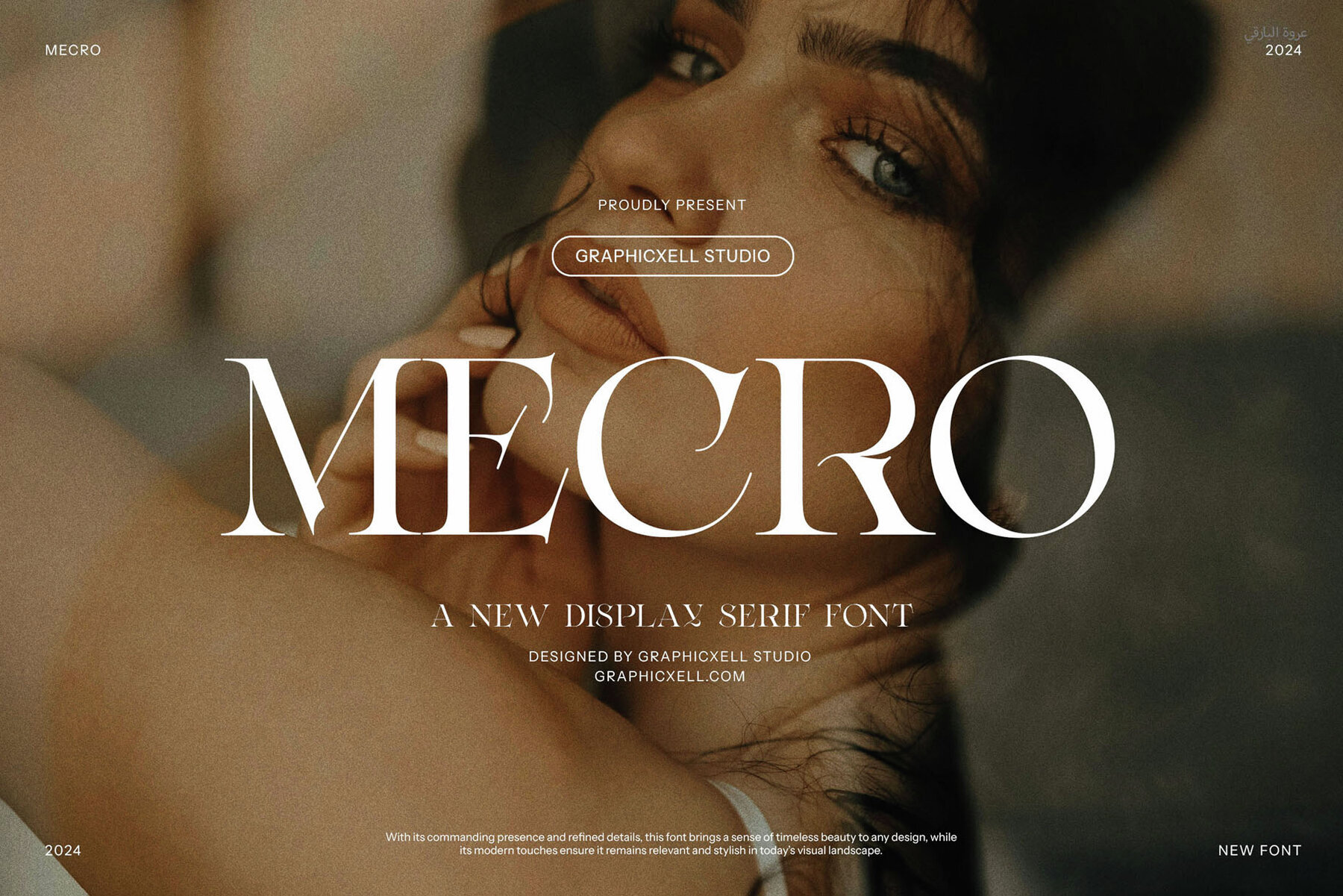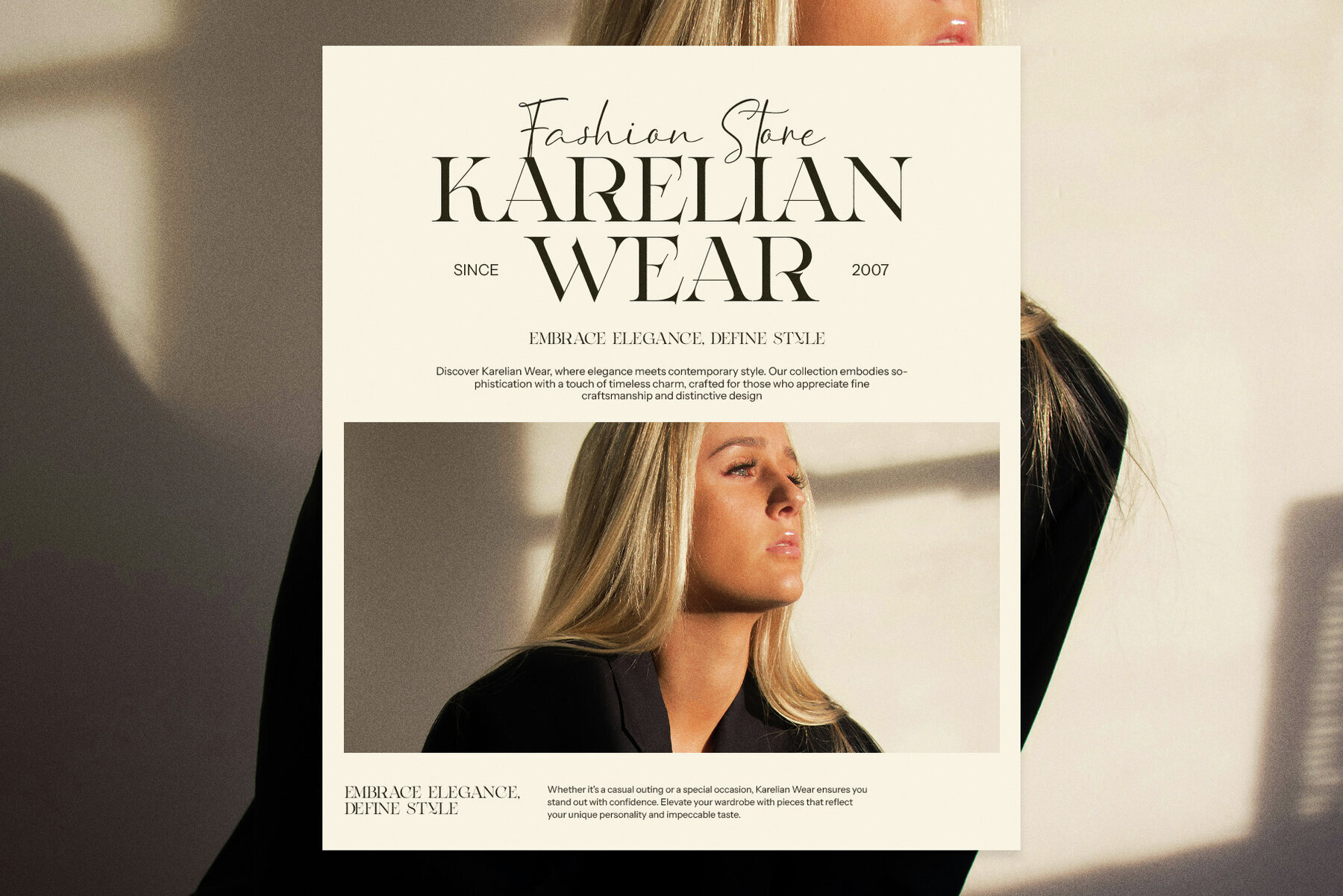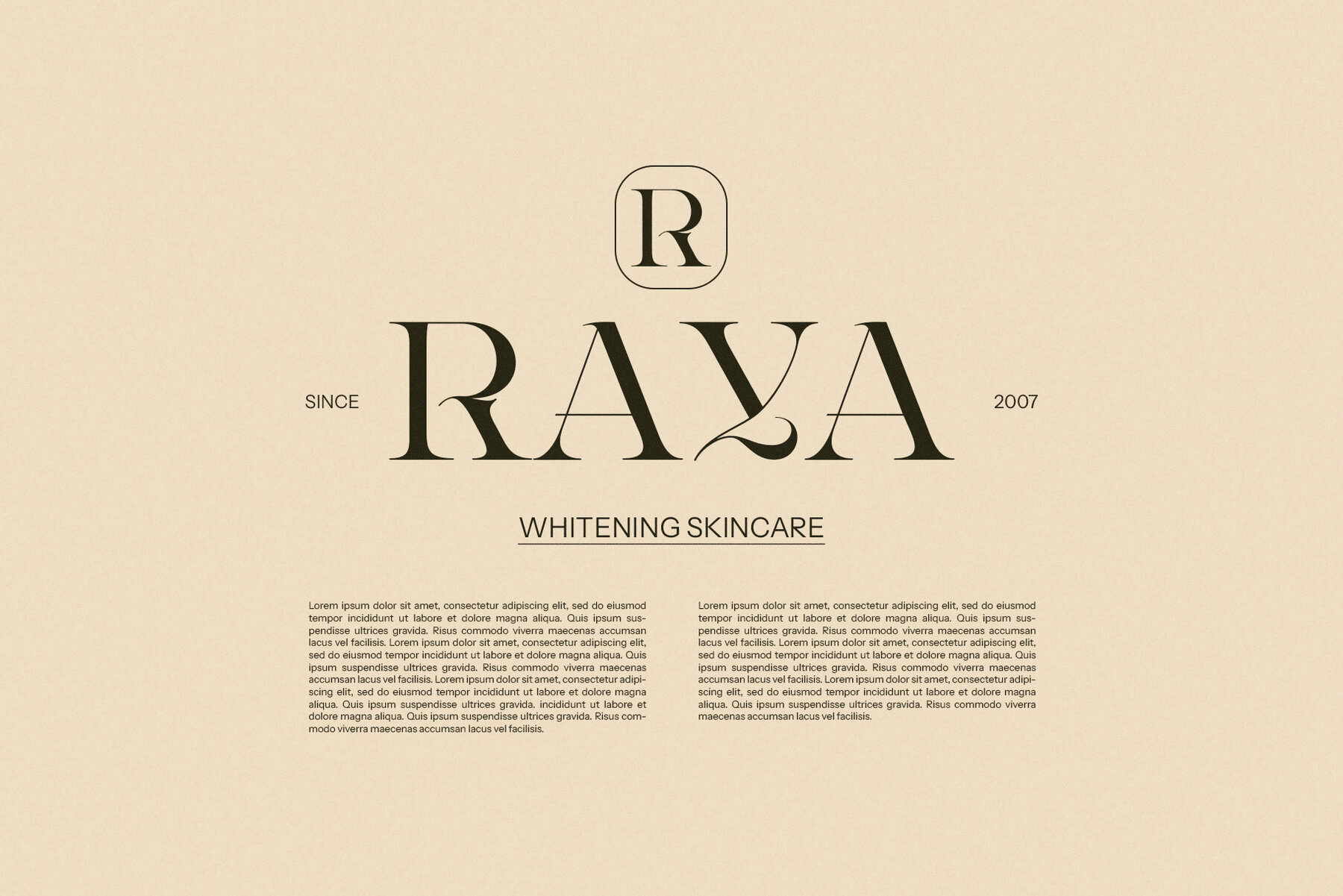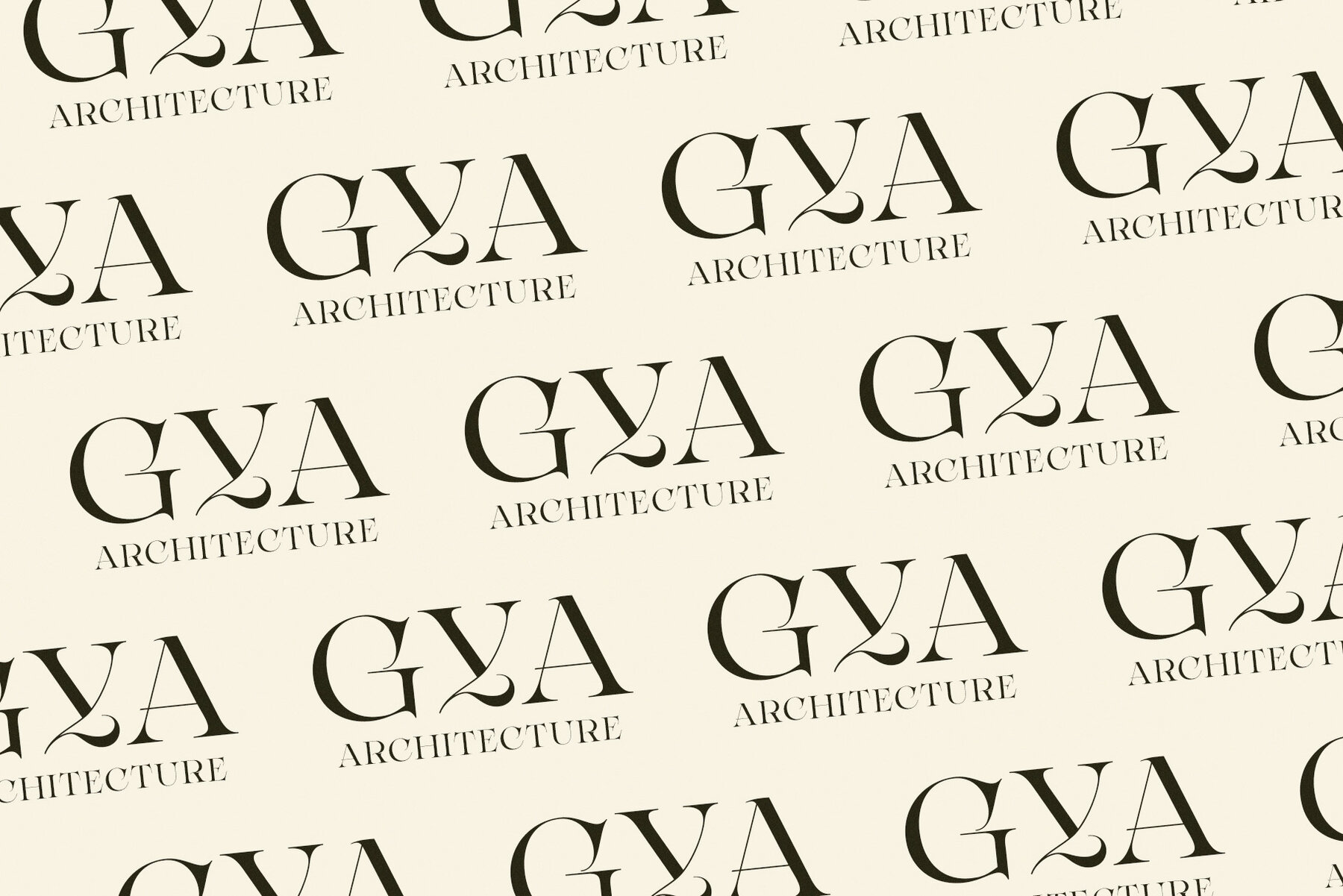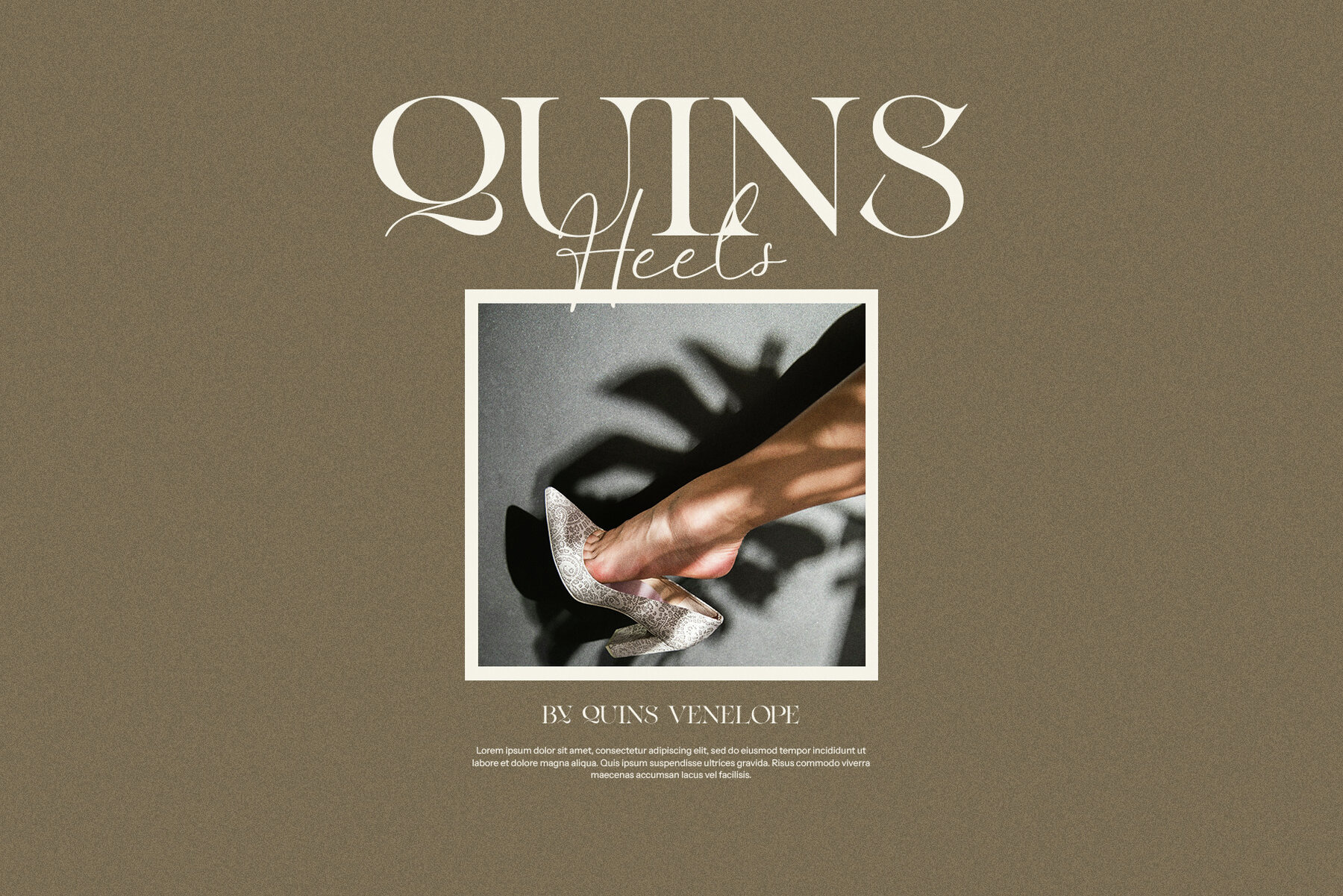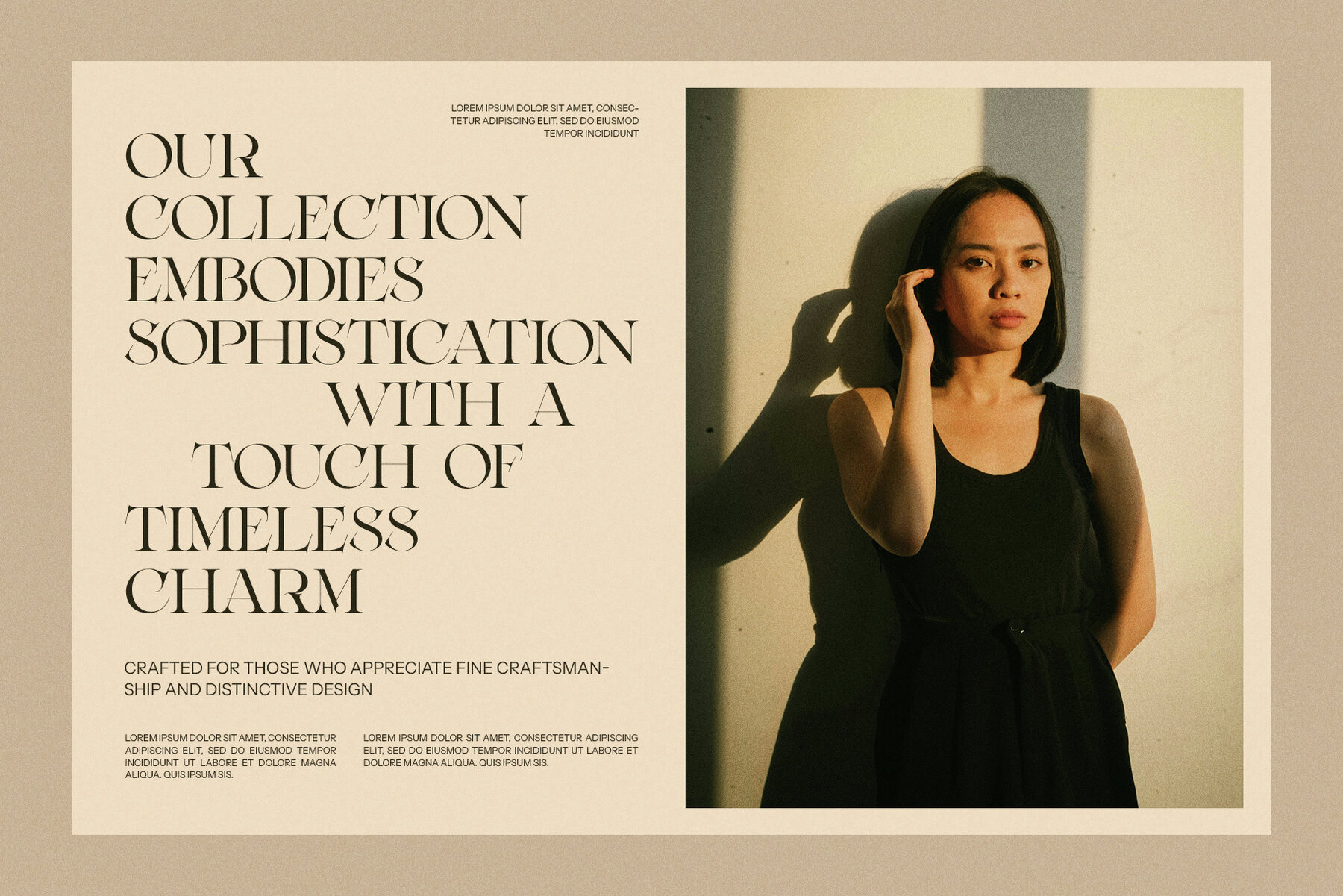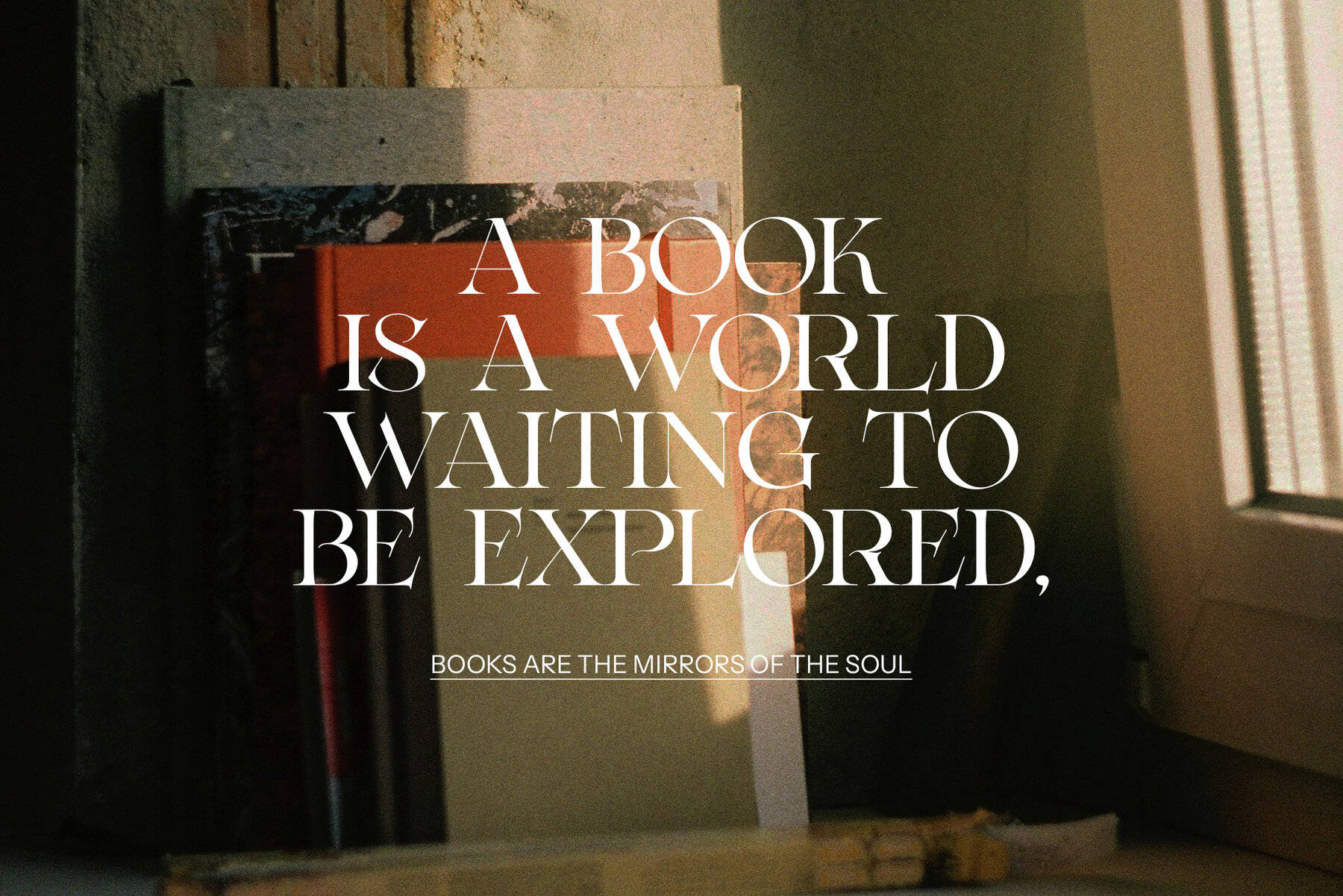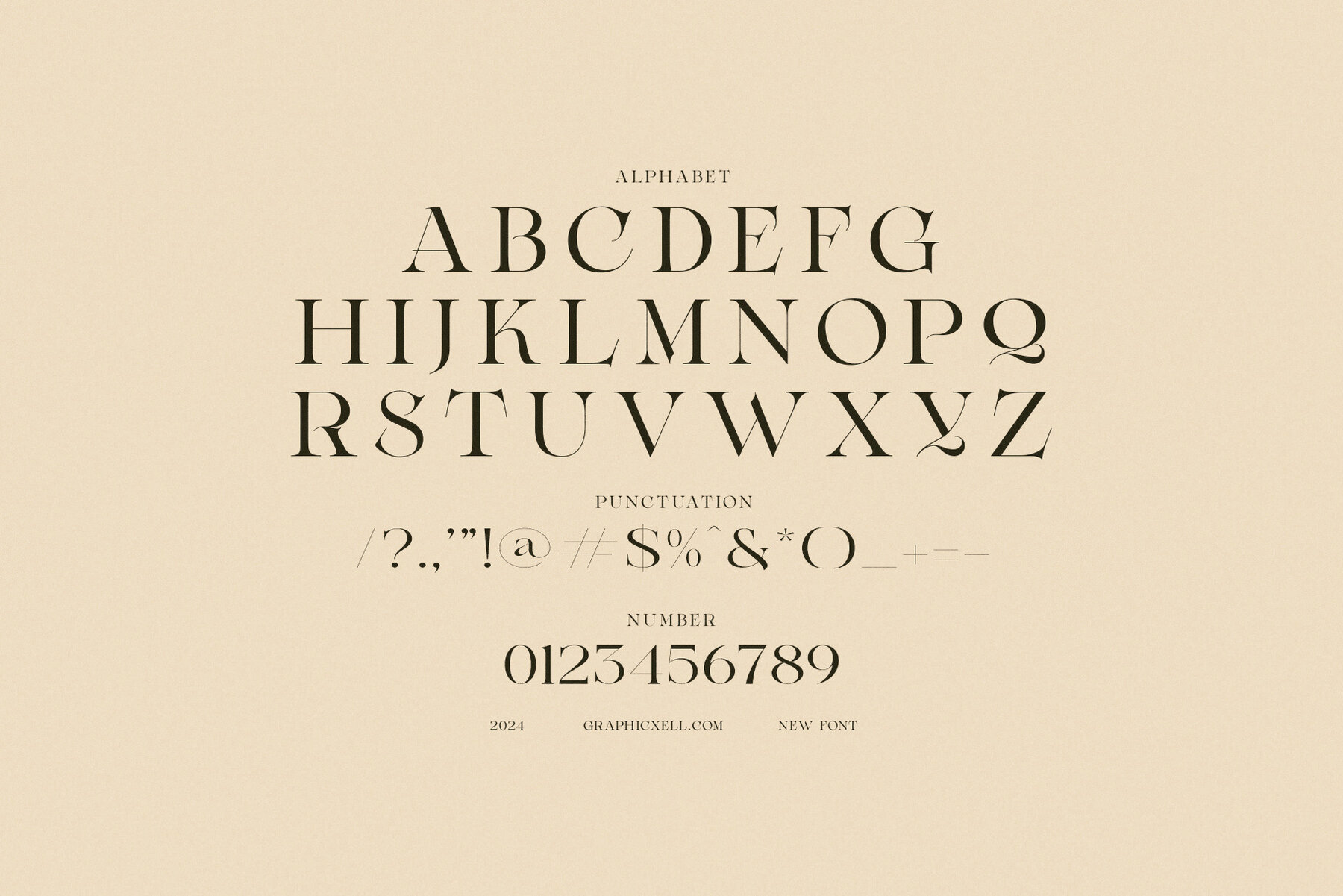
Mecro Font
Mecro
Mecro Vintage Serif Font masterfully blends vintage elegance with modern flair, offering a sophisticated choice for graphic and digital designers. The font's carefully designed letterforms and bold serifs showcase a unique combination of classic serif appeal with contemporary design elements. Its geometric and organic serifs create a striking balance of angular precision and fluid curves, making Mecro not only visually captivating but also highly adaptable for various design needs.
Ideal for high-end branding, luxury product packaging, and editorial layouts, Mecro excels in providing a blend of tradition and innovation. Its versatility allows it to perform in both large display formats and more intricate applications, ensuring readability and charm. The font's timeless nature ensures it becomes a lasting component in any project, whether for logos, invitations, or advertisements. Choose Mecro to impart a sense of refinement and modernity, capturing the attention and admiration of your audience with its elegant and memorable presence.